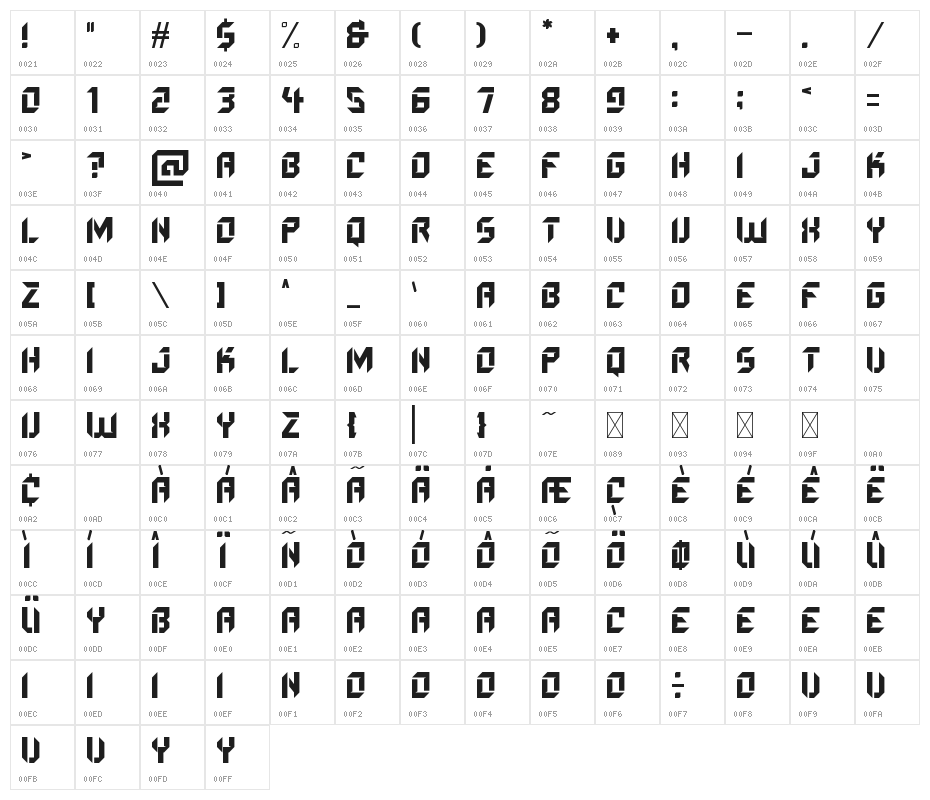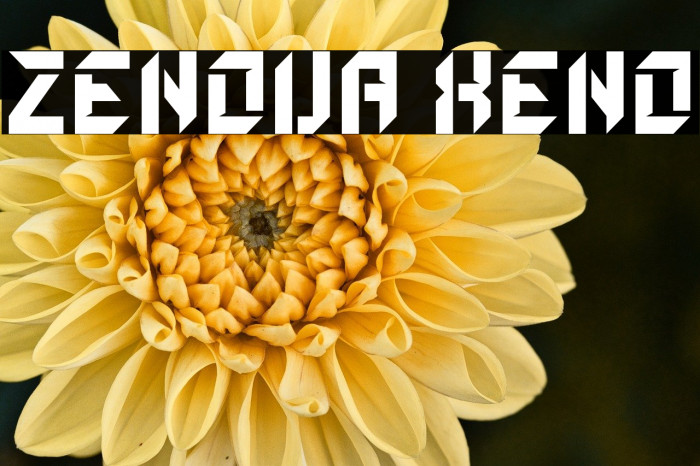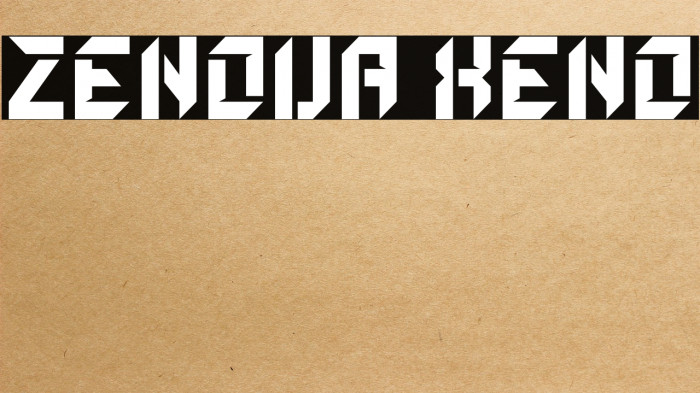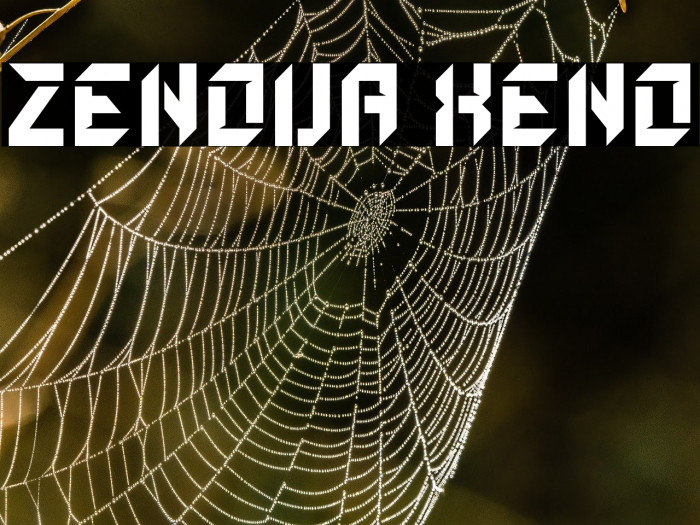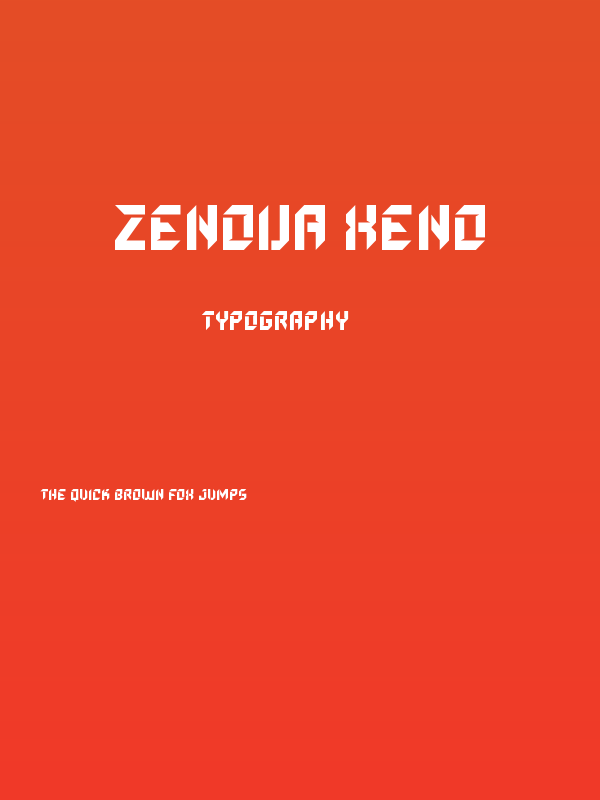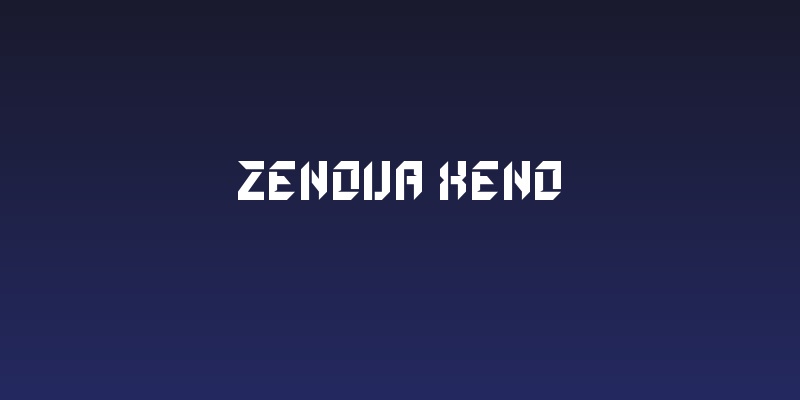
ZENOVA XENO Font
ZENOVA XENO Description
This font exhibits a bold and futuristic design with sharp, angular edges and a geometric structure. The characters are constructed with a consistent thickness, giving them a solid and robust appearance. The uppercase and lowercase letters maintain a uniform style, enhancing the cohesive look of the font. The numerals and special characters follow the same design principles, ensuring a seamless integration across different text elements. The font's distinct style makes it ideal for projects that require a modern and edgy aesthetic.
Overall StyleFuturistic
Proposed ProjectsIdeal for sci-fi themed projects, technology branding, video game titles, and modern posters.